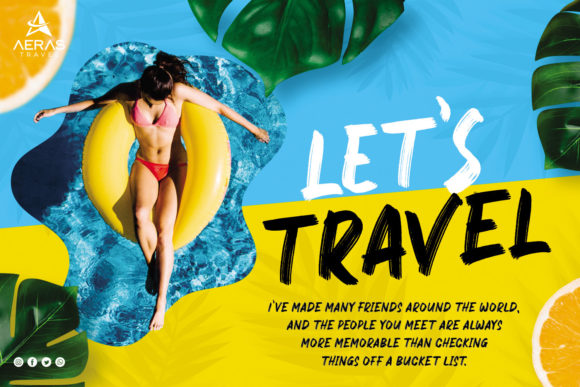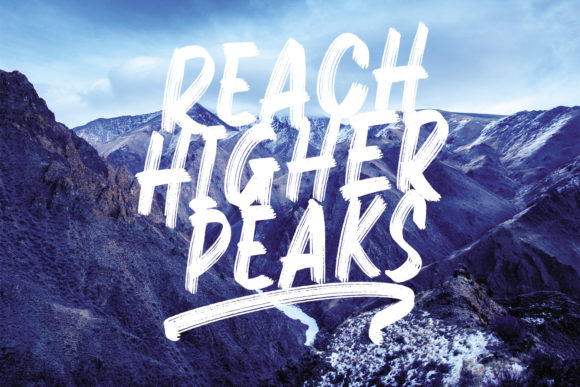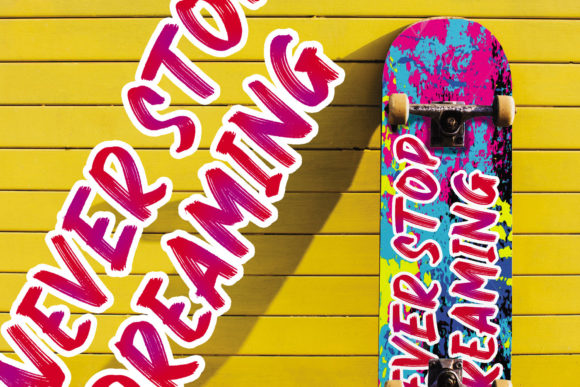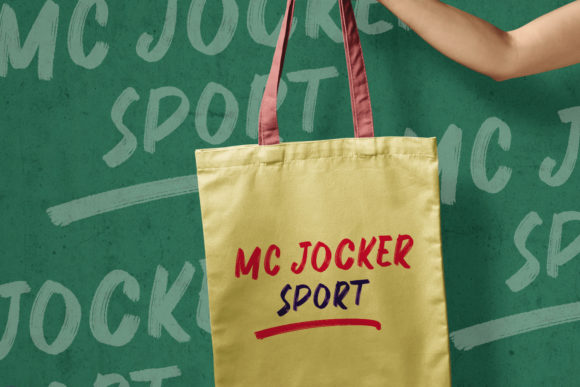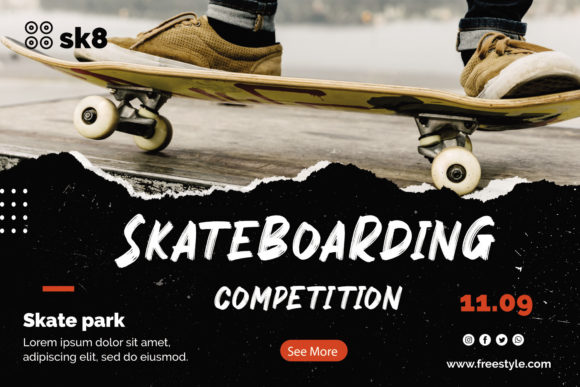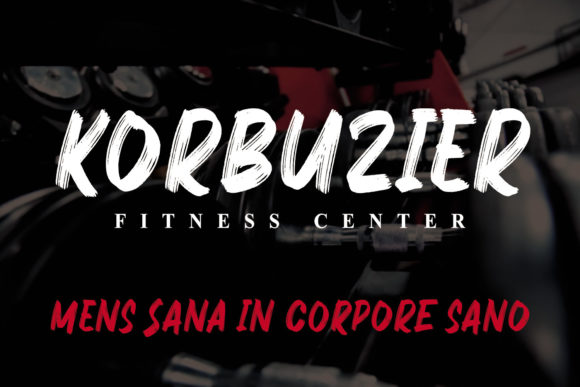
Unleash Your Creativity with Black Rose Font: The Ultimate Display Font for Designers and Crafters
Are you tired of using the same old fonts for your designs? Do you want to add a touch of elegance and sophistication to your projects? Look no further than the Black Rose Font, a cool, bold, and brushed display font that’s perfect for a wide range of design applications. In this article, we’ll take a closer look at the Black Rose Font, its features, and how you can use it to take your designs to the next level.
What is Black Rose Font?
Black Rose Font is a stunning display font that’s designed to make a statement. Its bold and brushed texture gives it a unique, hand-crafted look that’s perfect for designs that require a touch of personality. Whether you’re working on a logo, advertisement, or clothing design, Black Rose Font is sure to grab attention and leave a lasting impression.
Key Features of Black Rose Font
- Cool and Bold Design: Black Rose Font features a bold and eye-catching design that’s perfect for making a statement.
- Brushed Texture: The font’s brushed texture gives it a unique, hand-crafted look that’s perfect for designs that require a touch of personality.
- Versatile: Black Rose Font is suitable for a wide range of design applications, including t-shirts, sportswear, logos, advertisements, clothing, and more.
- Easily Readable: Despite its bold design, Black Rose Font is easily readable, making it perfect for designs that require a clear and concise message.
How to Use Black Rose Font in Your Designs
Black Rose Font is a versatile font that can be used in a wide range of design applications. Here are some ideas to get you started:
T-Shirt Designs
Black Rose Font is perfect for t-shirt designs that require a bold and eye-catching font. Use it to create stunning quotes, phrases, or slogans that will grab attention and make your designs stand out.
Sportswear Designs
Sportswear designs require a font that’s bold, yet easily readable. Black Rose Font is perfect for sportswear designs, such as jerseys, hoodies, or sneakers.
Logo Designs
Black Rose Font is also perfect for logo designs that require a bold and memorable font. Use it to create stunning logos that will represent your brand and leave a lasting impression.
Advertisements
Black Rose Font is perfect for advertisements that require a bold and attention-grabbing font. Use it to create stunning headlines, slogans, or taglines that will grab attention and drive sales.
Why Choose Black Rose Font?
There are many fonts available online, but Black Rose Font stands out from the rest. Here are some reasons why you should choose Black Rose Font for your designs:
- Unique Design: Black Rose Font features a unique and stunning design that’s perfect for making a statement.
- High-Quality: Black Rose Font is a high-quality font that’s designed to deliver exceptional results.
- Easily Customizable: Black Rose Font is easily customizable, allowing you to adjust the font to suit your design needs.
Black Rose Font is a stunning display font that’s perfect for designers and crafters who want to add a touch of elegance and sophistication to their designs. Its bold and brushed texture gives it a unique, hand-crafted look that’s perfect for a wide range of design applications. Whether you’re working on a t-shirt design, logo, advertisement, or clothing design, Black Rose Font is sure to grab attention and leave a lasting impression. So why wait? Download Black Rose Font today and unleash your creativity!